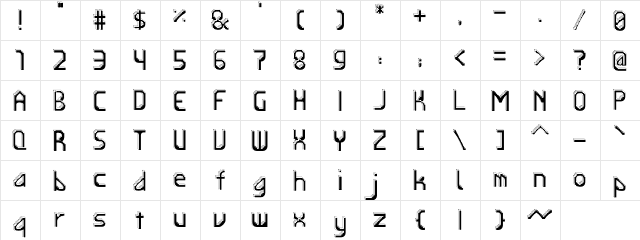
Pinen Regular
Design Context for Pinen Typeface
Pinen offers clean, dependable letterforms without strong stylistic allegiance, making it a practical choice for designers who need flexibility.